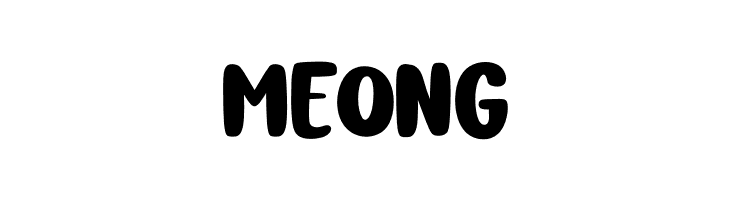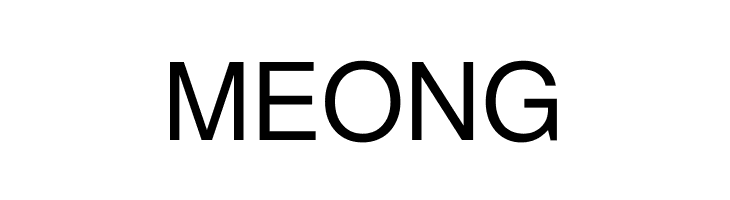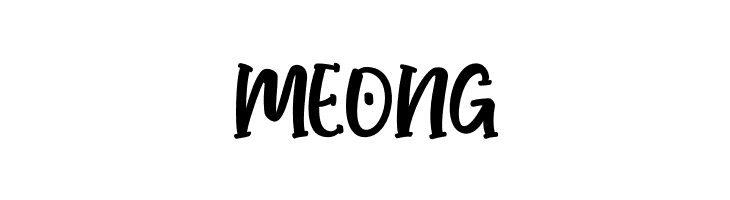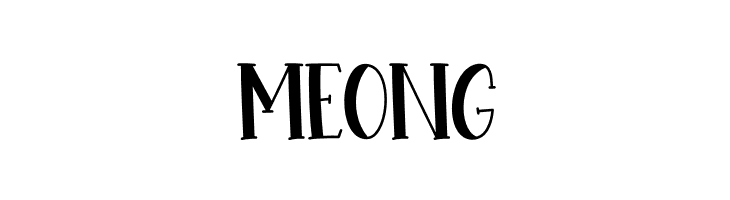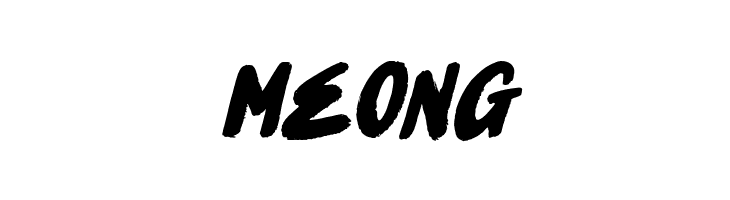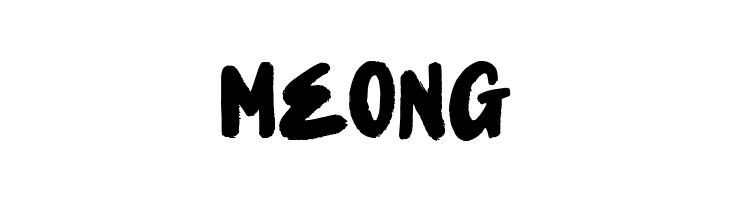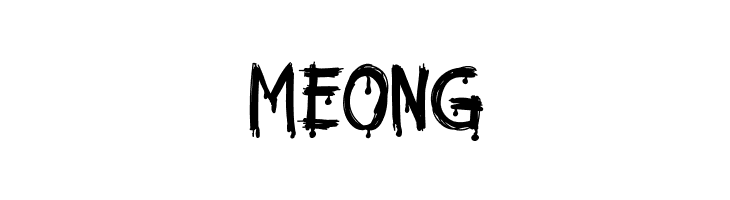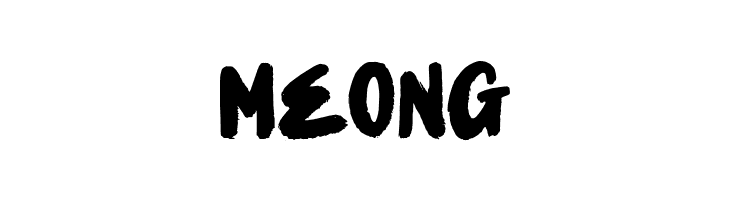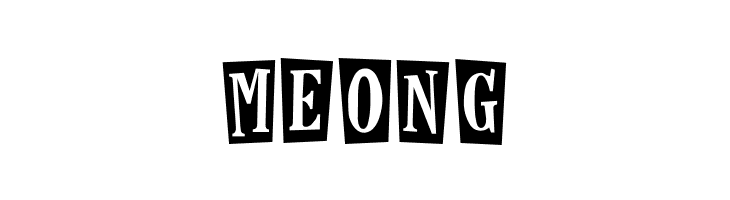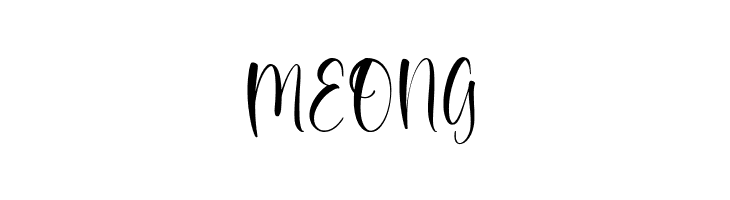
A bold, brush-style font with an energetic and dynamic appearance.
A playful handwritten font with rounded, casual letterforms.
A bold, playful font with quirky, uneven strokes and a whimsical style.
Illustrative characters in running poses, not a font.
An artistic and bold font with calligraphic influences and intricate details.
A playful, bold font with rounded strokes and smooth curves.
A playful, handwritten font with fluid strokes and dynamic contrast.
A playful, hand-drawn font with bold, rounded strokes and a whimsical style.
A bold, geometric font with a modern and industrial aesthetic.
A bold, slab serif font with strong geometric shapes and thick strokes.
A playful and festive font with whimsical, slightly irregular letterforms and moderate contrast.
A classic serif font with elegant, flowing lines and a calligraphic touch.
A classic serif font with rounded edges and elegant styling.
A modern, clean sans-serif font with uniform strokes and excellent readability.
Whimsical zodiac-themed display font with illustrated glyphs.
Whimsical zodiac-themed pictorial display font.
A jagged, eerie font perfect for horror themes with scratch-like strokes.
A decorative font with whimsical horse illustrations integrated into each character.
A bold, brush-style italic font with dynamic strokes and a handcrafted appearance.
A decorative font with comic-style illustrations for each character.
An abstract, artistic font with intricate line drawings and geometric patterns.
A bold, brush script font with a dynamic, hand-painted style.
A bold, hand-painted style font with an italicized, energetic appearance.
Illustrative dingbat font with household-themed pictograms.
Icon-based decorative font with housing and lifestyle motifs.
A whimsical, illustrative font with fish-shaped characters.